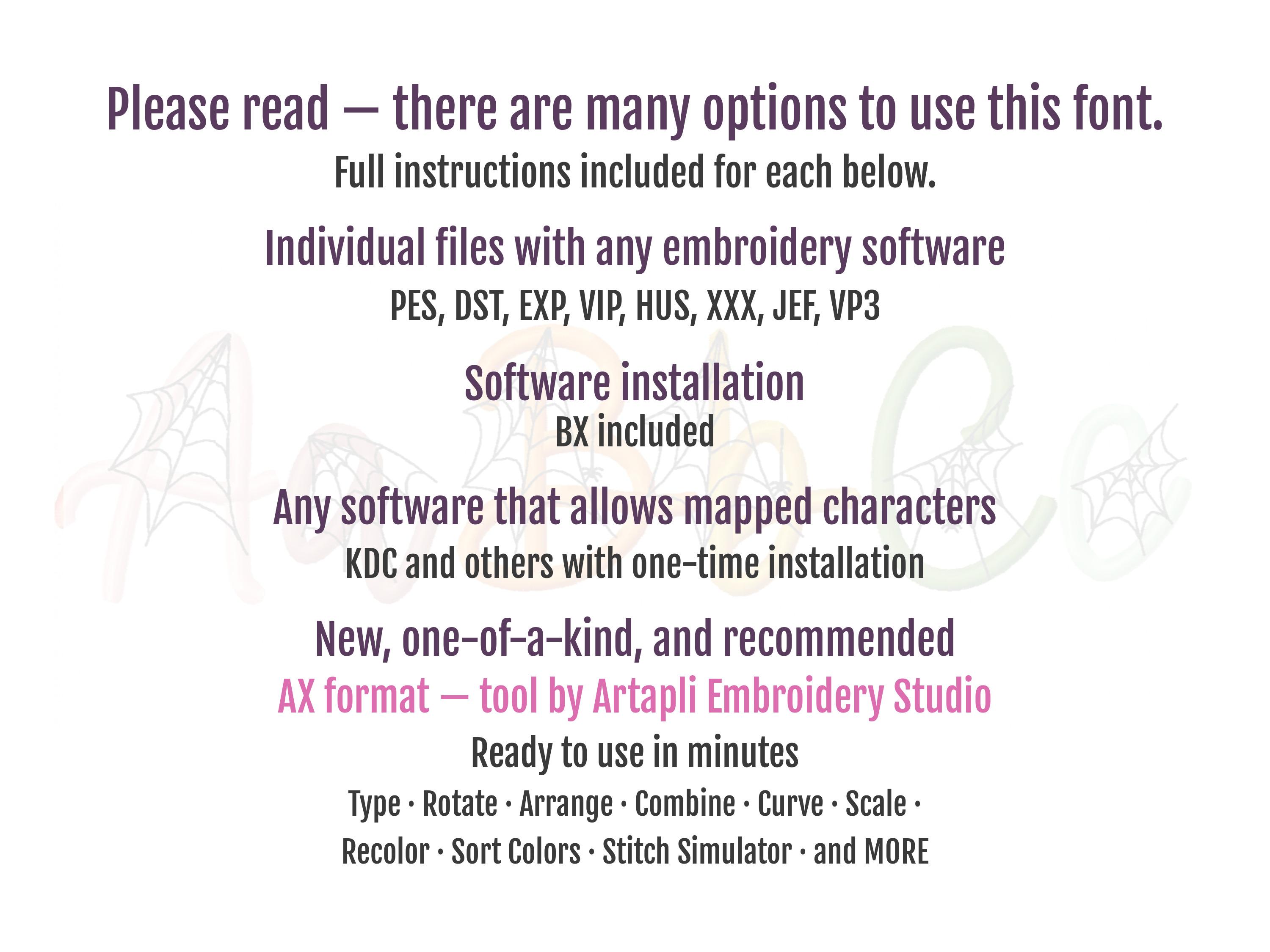
Spiderweb Font embroidery spider's web alphabet Halloween cobweb spooky scary letters with spider web machine embroidery design Boo font, BX included
Whole alphabet A-Z uppercase and lowercase letters.
This is a satin stitch font and the spider web pattern is a part of the design.
Awesome font just need to use a strong colour so the web doesn’t hide the lettering